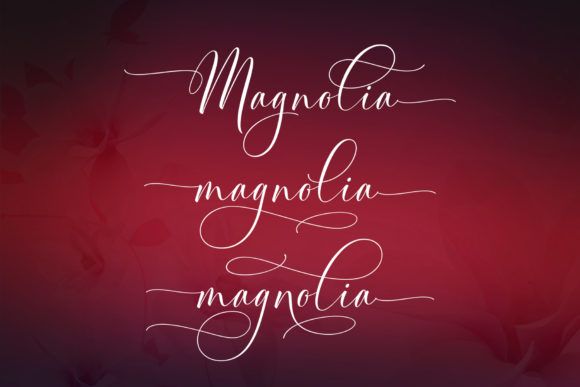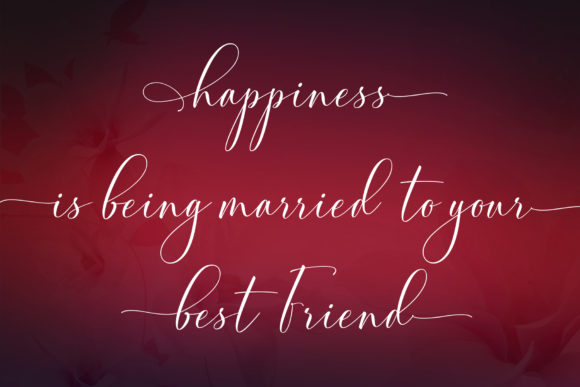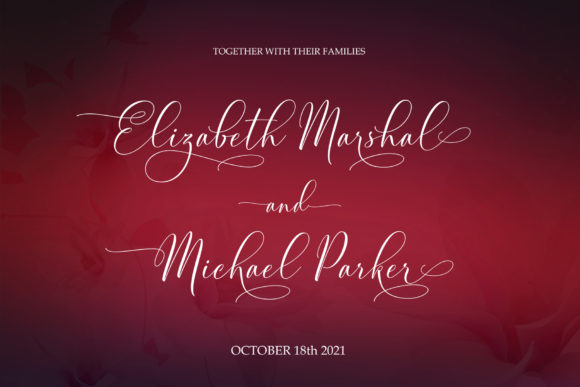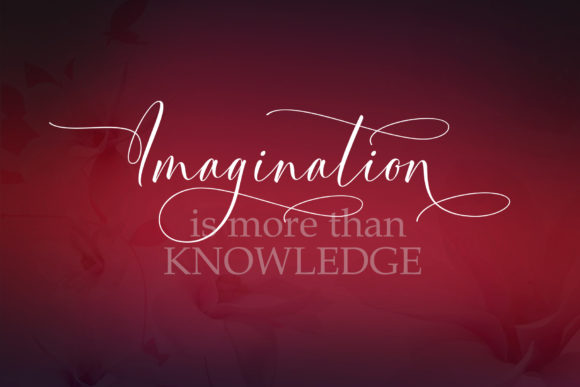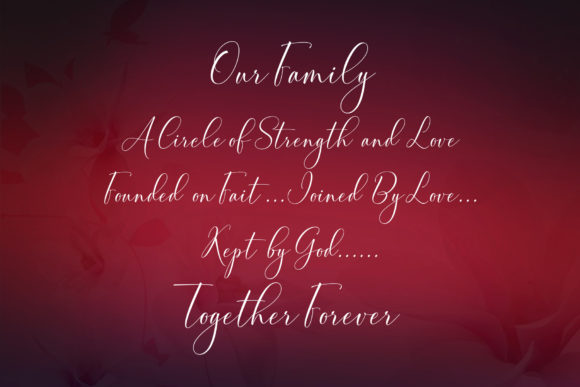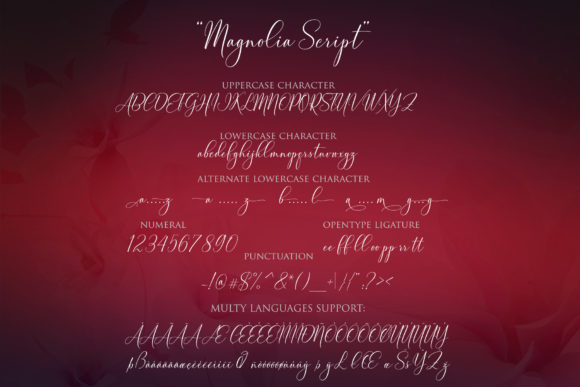
Introduction to Magnolia Font
Have you ever found yourself stuck in a creative rut, searching for the perfect design element to elevate your project? You’ve spent hours scouring the web, browsing through countless font options, and nothing seems to capture the essence you’re looking for. Well, we’re here to introduce you to a game-changer – the Magnolia Font. This soft and charming script is a breath of fresh air, offering a unique style that’s sure to inspire your next creative project.
As designers, we’re always on the lookout for high-quality design resources that can help us stand out from the crowd. With the Magnolia Font, you can add a touch of elegance and sophistication to your work, whether it’s a branding project, a brochure, or even a social media graphic. And the best part? It’s available for free download, making it an accessible design resource for creatives of all levels.
Whether you’re working on a personal project or a commercial endeavor, the Magnolia Font is a valuable addition to your design toolkit. Its transparent background and versatile style make it easy to use, and its unique look is sure to leave a lasting impression on your audience. So why settle for ordinary when you can have extraordinary with the Magnolia Font?
Key Features of Magnolia Font
- High-quality, free download font ideal for creative projects and design resources.
- Unique, elegant script font with a transparent background, perfect for adding a touch of sophistication to any design.
- Suitable for a wide range of design applications, from wedding invitations to branding materials and more.
Honest Review: Magnolia Font
I recently had the opportunity to work with the Magnolia Font, and I must say it’s been a game-changer for my creative projects. This high-quality font is perfect for anyone looking to add a touch of elegance to their designs.
- What works well: ✨ The font’s versatility is impressive, and it’s incredibly easy to use. The transparent background makes it perfect for overlaying text on images, and the free download is a major bonus.
- What works well: ✨ The font’s clean lines and classic design make it perfect for a wide range of creative projects, from wedding invitations to business cards.
However, I do have to mention a few limitations:
- ⚠️ The font may not be suitable for very large text sizes, as the letters can become a bit distorted.
Overall, I’m thoroughly impressed with the Magnolia Font. It’s a valuable addition to any designer’s toolkit, and I would highly recommend it to anyone looking for a high-quality, free design resource.
For optimal results, use the Magnolia Font in combination with other design elements, such as images and graphics. Experiment with different font sizes and colors to create a visually appealing design. Additionally, consider using the Magnolia Font for common use cases, such as logo design, typography, and branding.
The Magnolia Font is suitable for a variety of creative projects, including logo design, typography, branding, and more. Its high-quality design and transparent background make it an excellent choice for designers and artists looking for a reliable design resource.